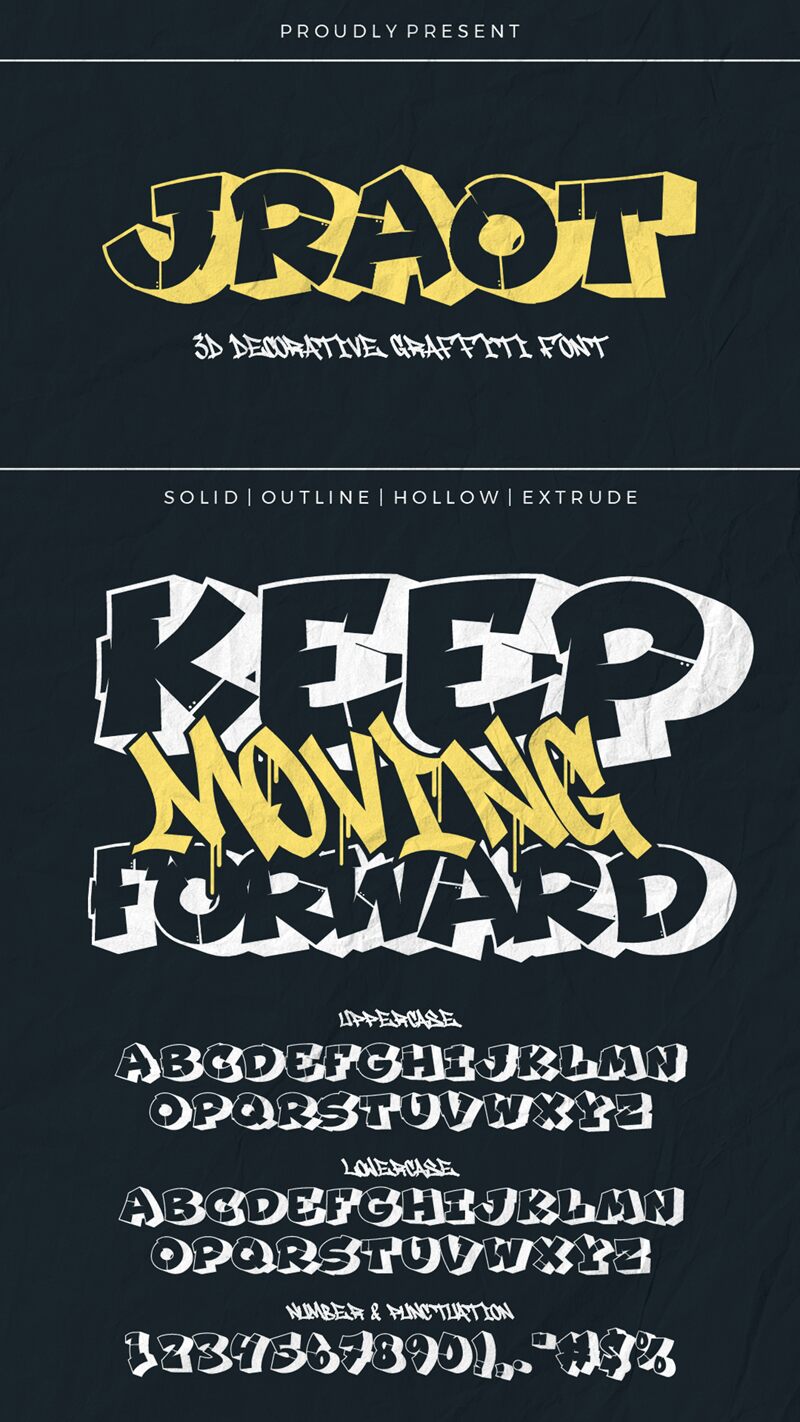
Jraot font family is a graffiti-inspired typeface by Cikareotype Studio that comes in 4 font styles and reflects a bold and urban aesthetic. It carries a dynamic energy and contemporary flair, bringing an artistic edge into play. The font family conveys an informal vibe suitable for impactful expression. Each character is carefully engraved in the street culture tradition making the whole look rich in various designs.
Take on and conquer ambitious design projects with this superior quality free font. Jraot’s undeniable personality reflects nicely on product packaging, posters, magazine covers, and other published designs. Capture your target audience with logos or create brands that will last with permanent and temporary signage, store signs, etc. This super font will also be an excellent addition to websites, social media posts, mobile apps, etc. Strong fonts like this also look great on apparel items or product branding.